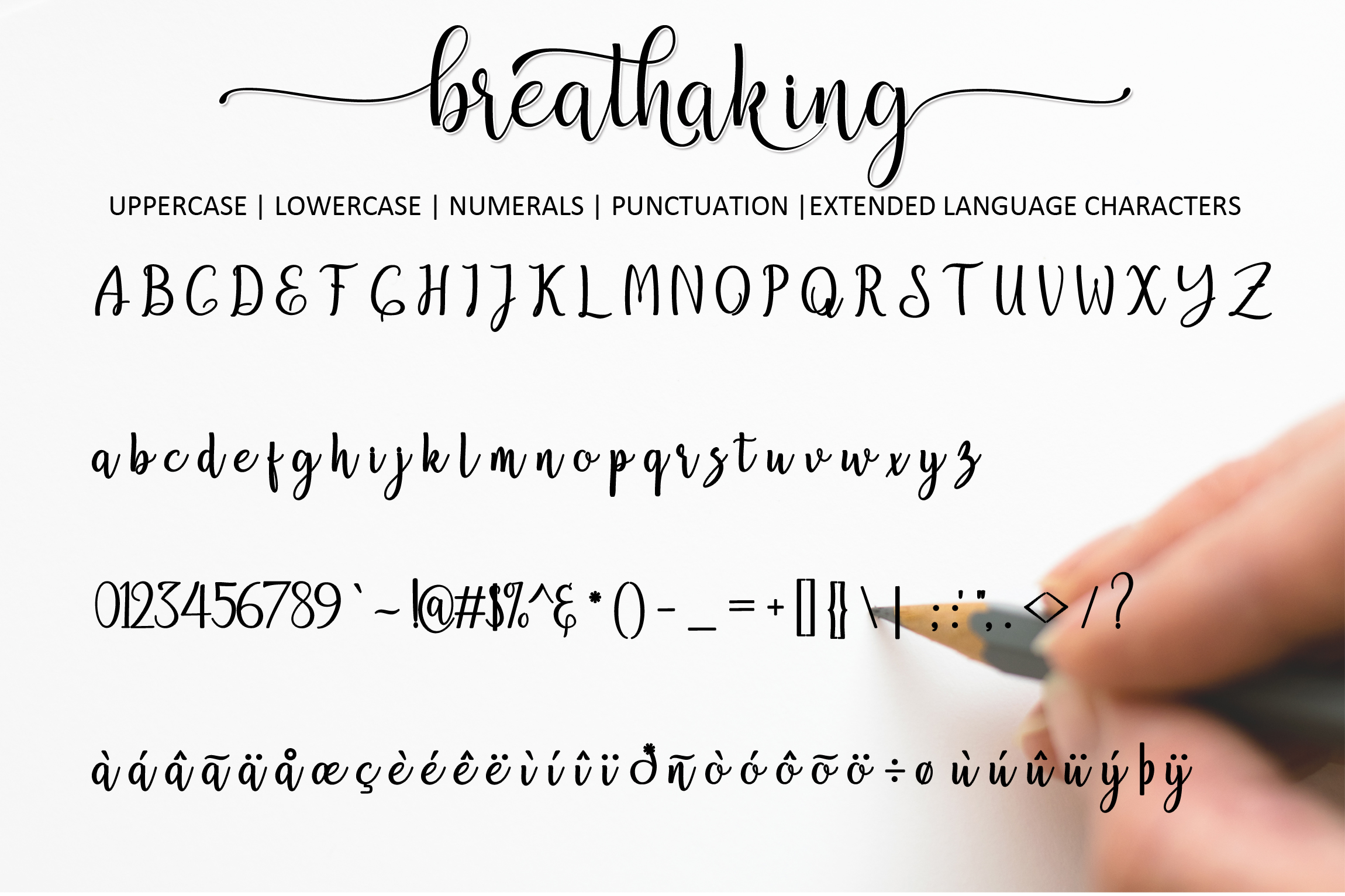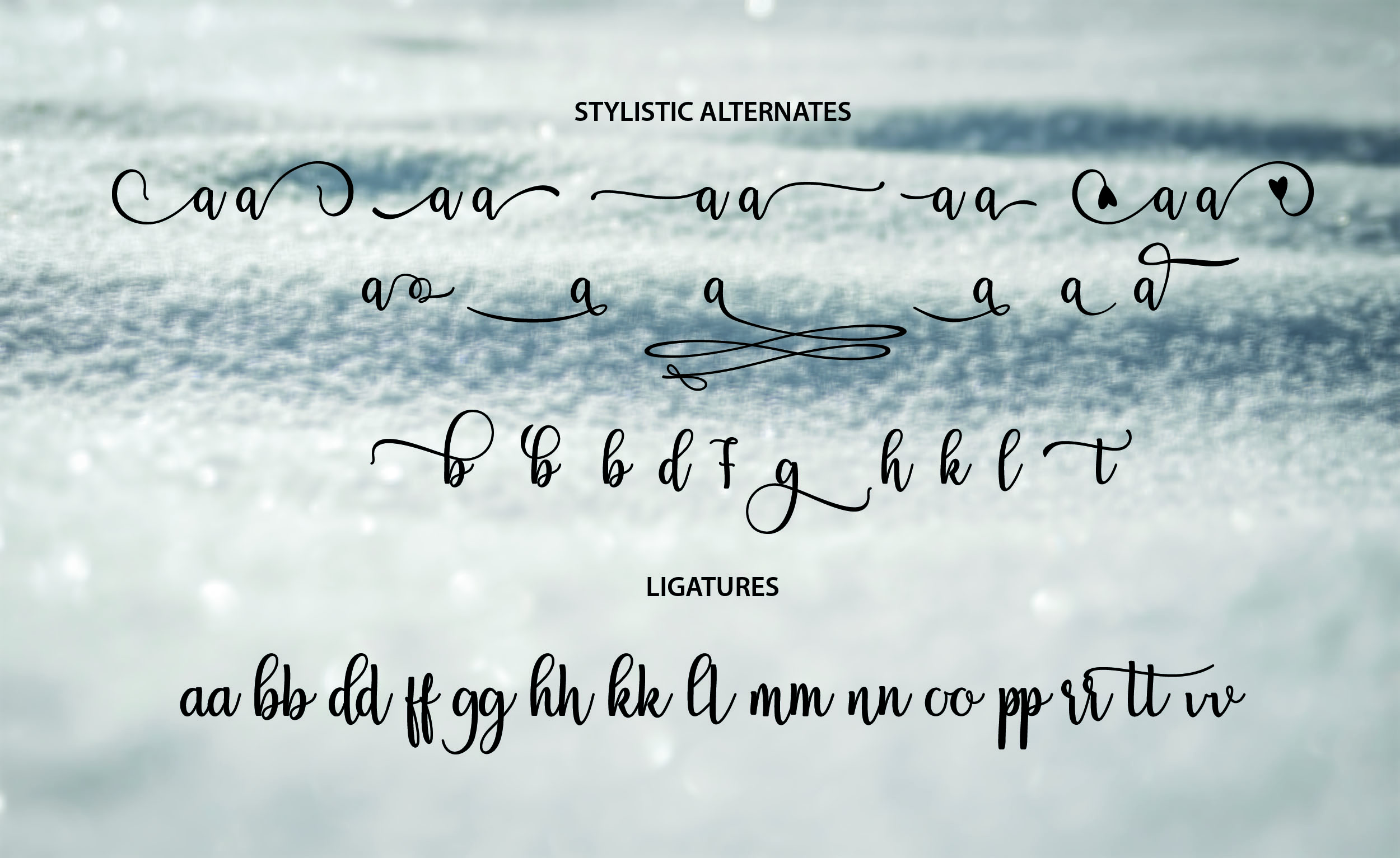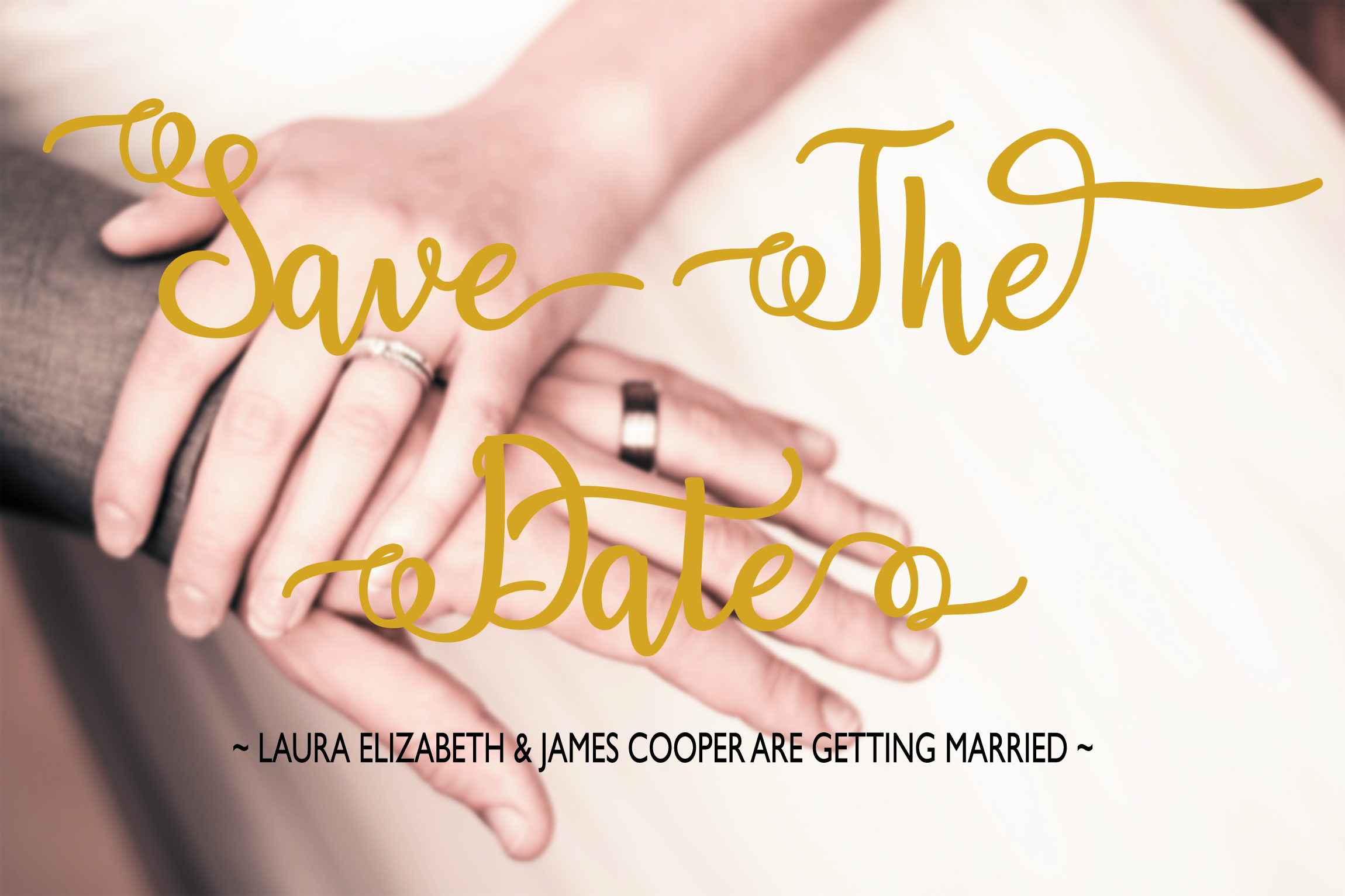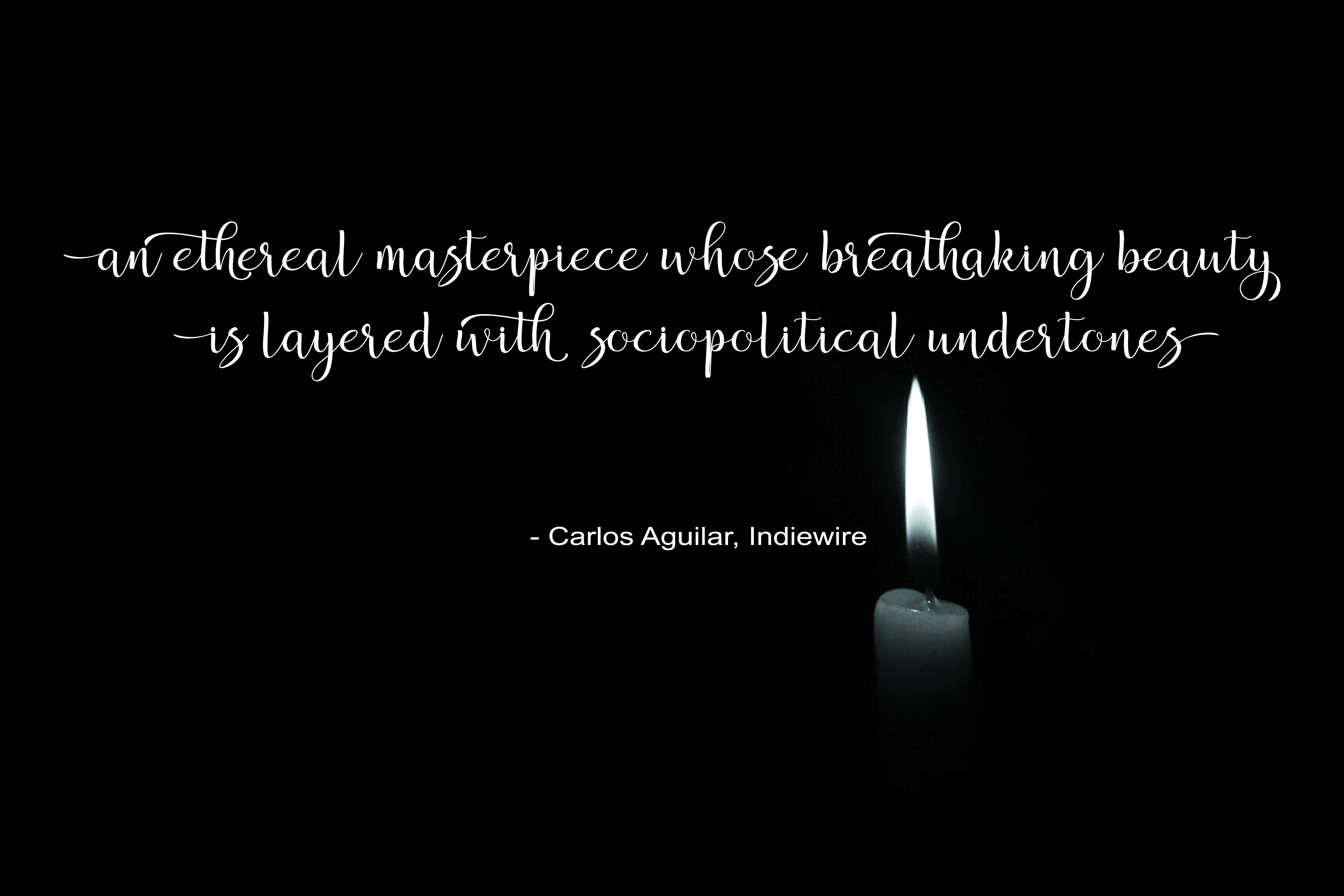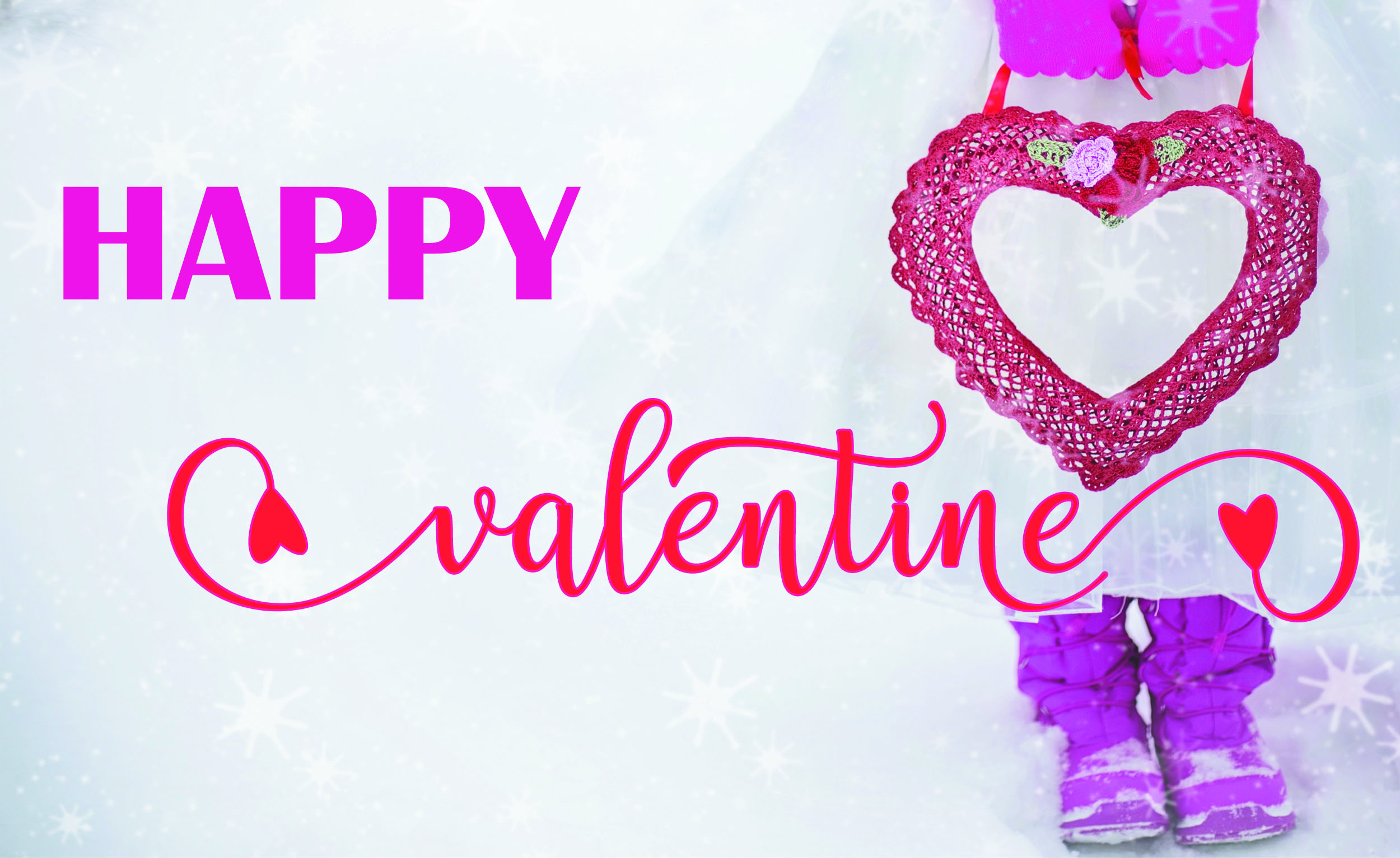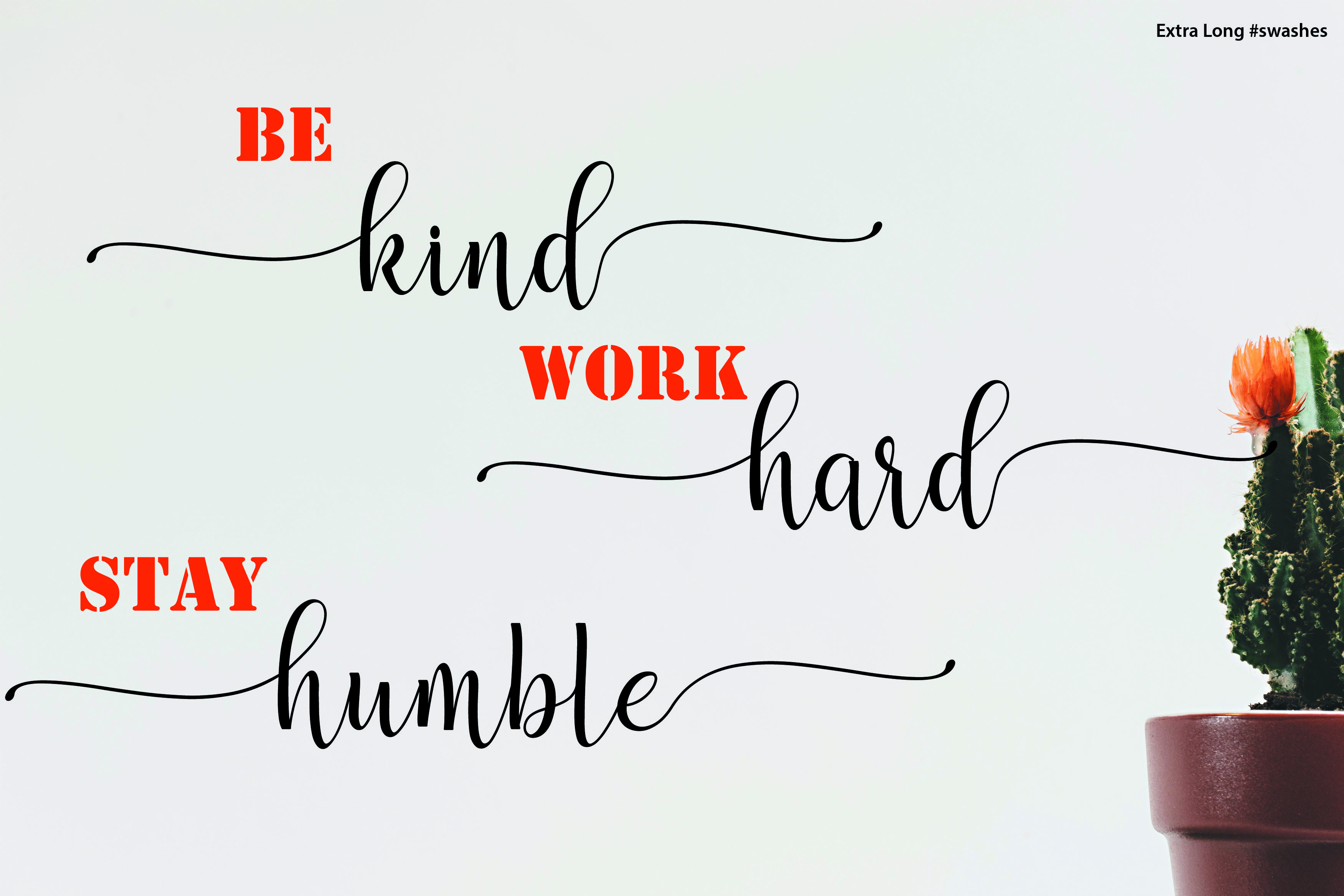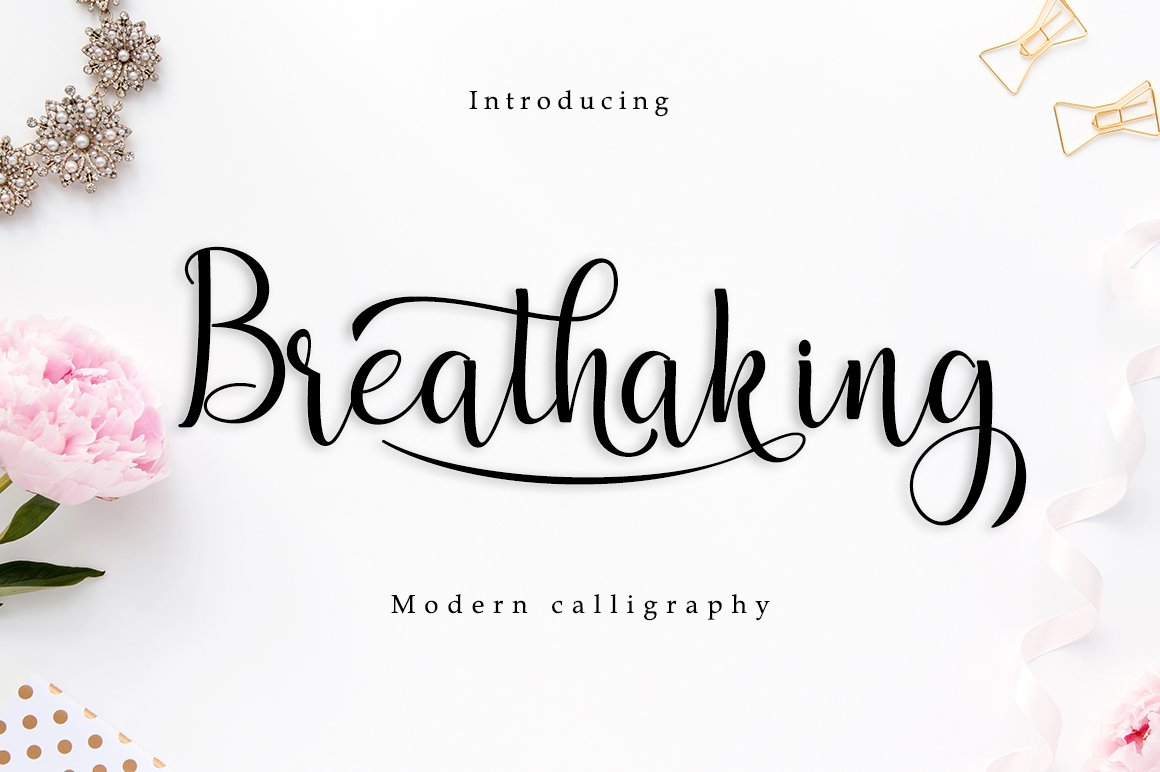
The Art of Typography: Unveiling the Breathaking Font
Have you ever found yourself lost in a world of words, where the perfect phrase is waiting to be set free by the perfect font? That’s exactly what happened to me when I stumbled upon the Breathaking Font. Its elegant script and flourished design captivated me, and I knew I had to share it with fellow designers.
Breathaking Font is a beautiful script font designed to add a touch of romance and sophistication to your type-based projects. With its numerous alternates, it’s the perfect choice for unique and special projects that demand attention to detail. Whether you’re working on a wedding invitation, a luxury brand’s advertising campaign, or a personal blog, this font can elevate your design game in an instant.
Breathtaking Font Key Features
- Unique Characteristics: Features a dynamic, hand-drawn style with intricate details and subtle texture, creating a distinctive visual effect.
Breathtaking Font Review
As a designer, I’m always on the lookout for fonts that can elevate a project and make it stand out. The Breathtaking Font is certainly one of those fonts that can grab your attention. Here are some of its strengths and weaknesses.
- Unique and creative design: The Breathtaking Font has a distinctive look that’s hard to find in other fonts. Its curves and swirls add a touch of elegance to any text.
- High level of detail: The font is incredibly detailed, with intricate patterns and shapes that make it perfect for use in creative projects.
- Good for headings and titles: The font is well-suited for use in headings and titles, as it’s bold and eye-catching.
- Limited legibility: While the font is beautiful to look at, it can be difficult to read in certain situations, particularly in small sizes or when used in long blocks of text.
- Not suitable for body text: Due to its complexity, the font is not ideal for use in body text, as it can be overwhelming and difficult to read.
Overall, I’d say that the Breathtaking Font is a great choice for designers who want to add a touch of elegance and sophistication to their projects. However, it’s not a font that should be used for large blocks of text or in situations where readability is crucial.
Tips for Getting the Most Out of Breathtaking Font
Here are a few tips to help you get the most out of Breathtaking Font:
- Use Breathtaking Font for headings and titles to add a touch of elegance.
- Pair Breathtaking Font with other fonts to create a unique and eye-catching combination.
Common Use Cases for Breathtaking Font
Breathtaking Font is perfect for:
- Use the Breathaking Font for the main quote, making sure to choose a size and color that stands out against the background.
- Combine the font with a gradient background that shifts from light blue to purple, evoking a sense of moonlit serenity.
- Enhance the mystical feel by adding some subtle, shimmering effects to the text and background.
- Balance the design with a simple, minimalist layout to avoid overwhelming the viewer.
- Use the Breathaking Font for the main invitation text, selecting a size and color that complements the distressed design.
Breathaking Font Project Ideas
Project 1: Moonlit Quote
A serene and mystical project featuring the Breathaking Font. This design combines the elegant font with a soft, dreamy color palette and subtle moonlit effects.
Project 2: Rustic Wedding Invitation
A charming and vintage-inspired project that pairs the Breathaking Font with a rustic, distressed design.
Project 3: Digital Art Piece
A futuristic and dynamic project that showcases the Breathaking Font in a digital art context.